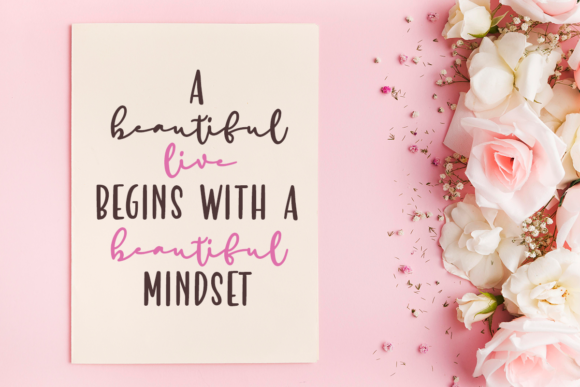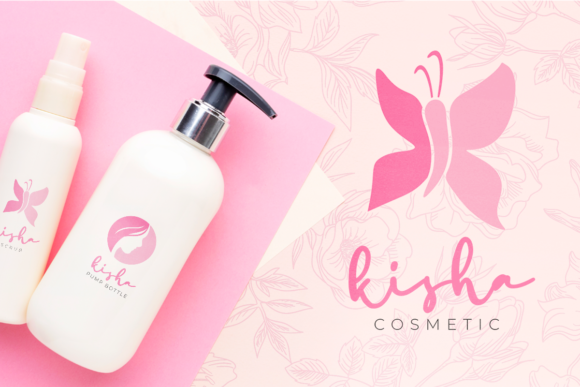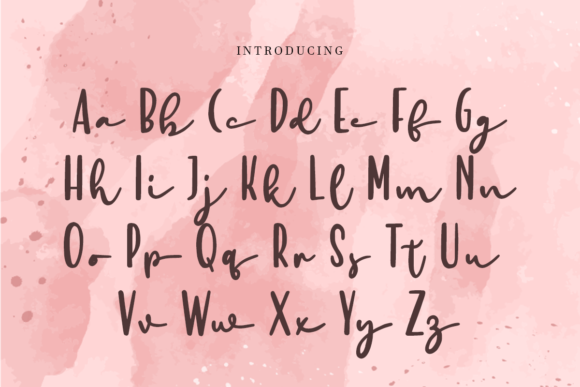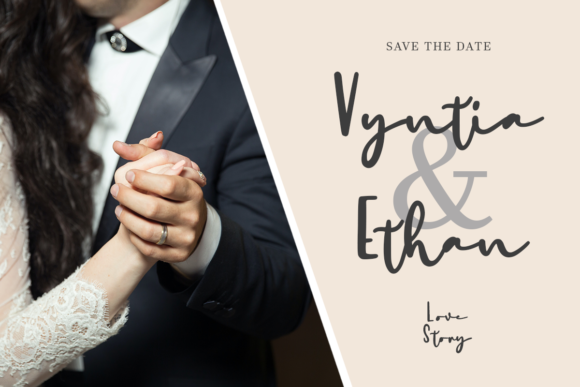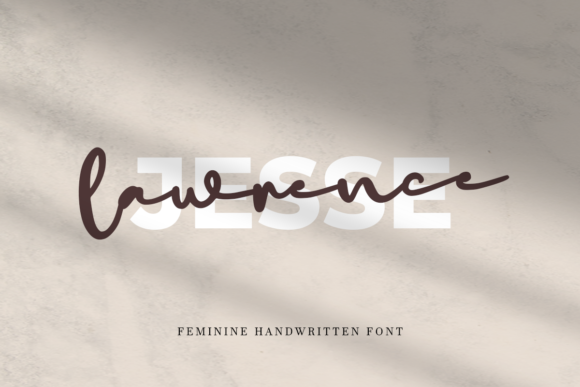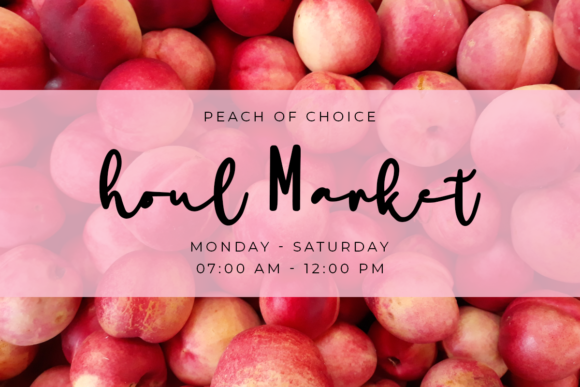
Introduction to Lovely Beige Font
Lovely Beige is a sweet, casual and friendly handwritten font.
Fall for its beautiful style and use it to create gorgeous wedding invitations, beautiful stationary art, eye-catching social media posts, and much more .